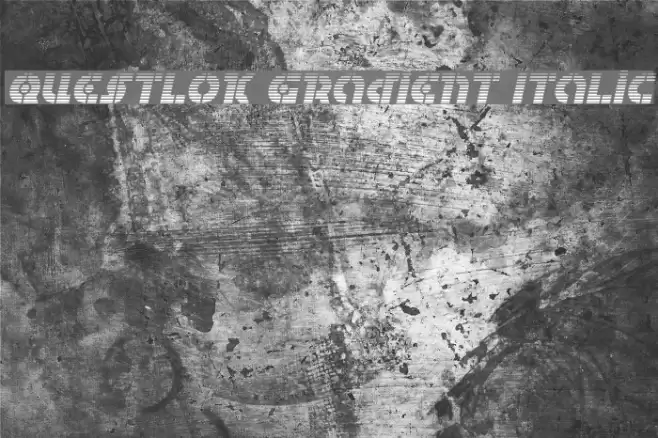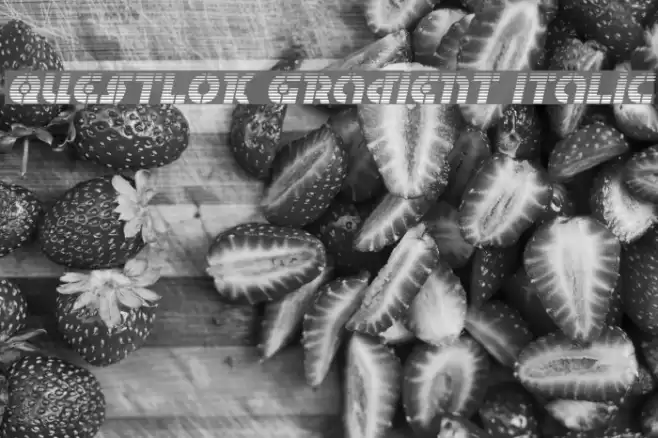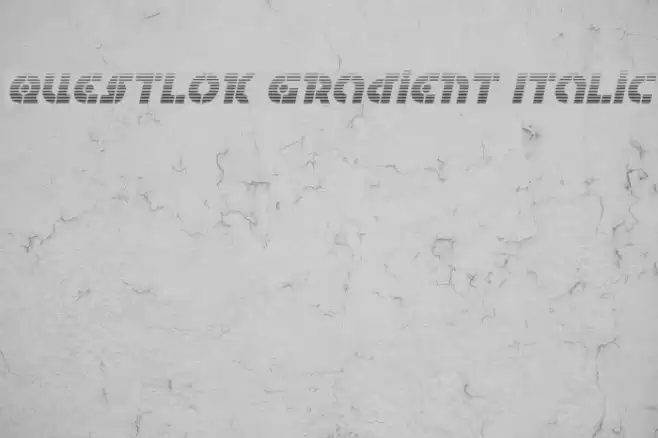
Questlok Gradient Italic Font
Questlok Gradient Italic Description
This font features a unique gradient effect created by horizontal lines that form each character, giving it a dynamic and modern appearance. The italic style adds a sense of motion and fluidity, enhancing its contemporary feel. The characters are bold and have a strong presence, making them suitable for attention-grabbing designs. The spacing between characters is relatively tight, contributing to its compact look. This font is ideal for projects that require a futuristic or tech-inspired aesthetic, such as digital art, modern branding, or innovative product packaging.
A bold, italic font with a gradient effect created by horizontal lines, offering a modern and dynamic style from Uncategorized fonts.
- Proposed Projects: Ideal for digital art, modern branding, tech-inspired designs, and innovative product packaging.
- Character Spacing: Tight